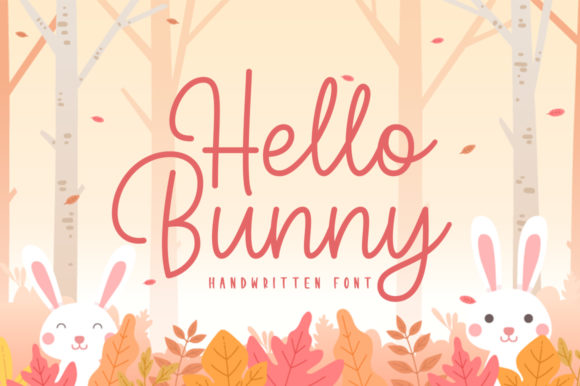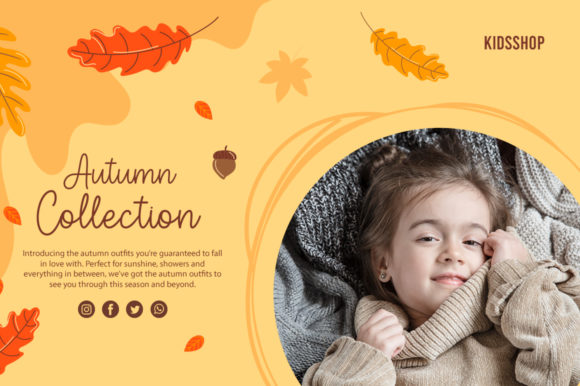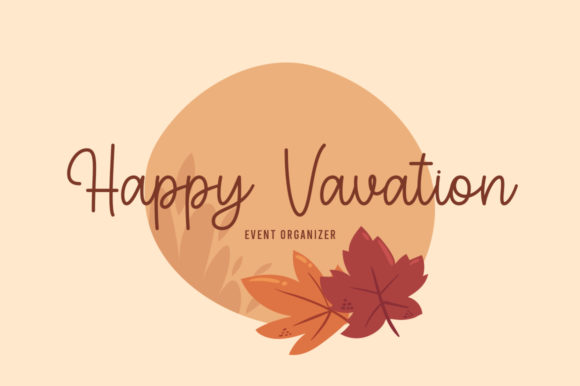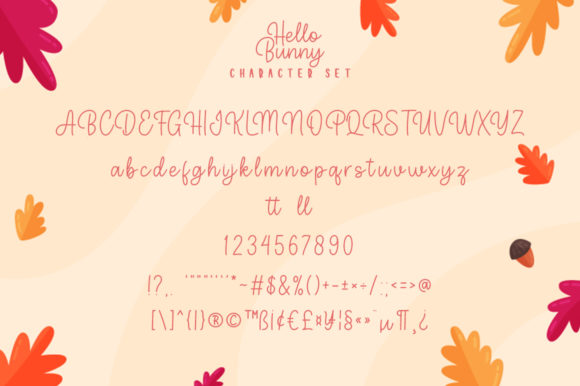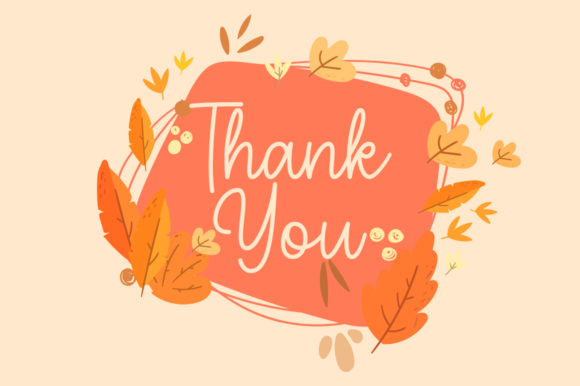
Hello Bunny Font
About Hello Bunny Font
Hello Bunny is a sweet handwritten font, masterfully designed to become a true favorite. It maintains its classy calligraphic influences while feeling contemporary and fresh. Fall in love with it and bring your projects to the highest levels!